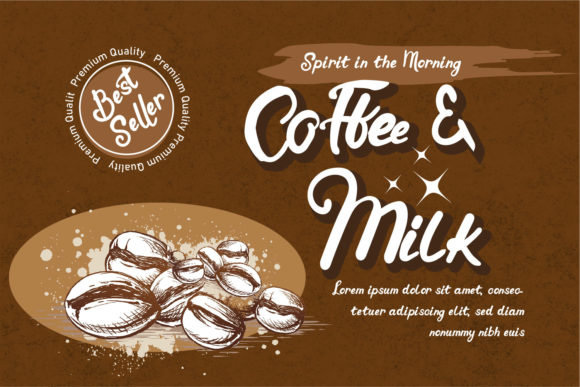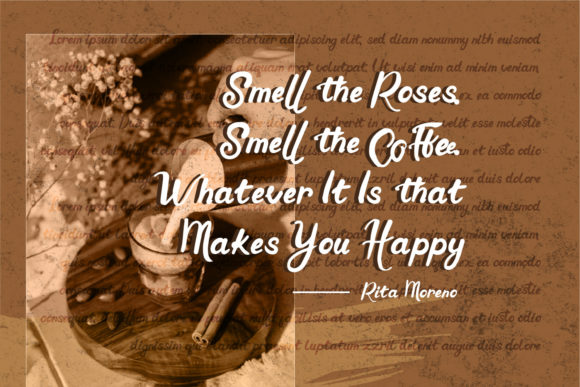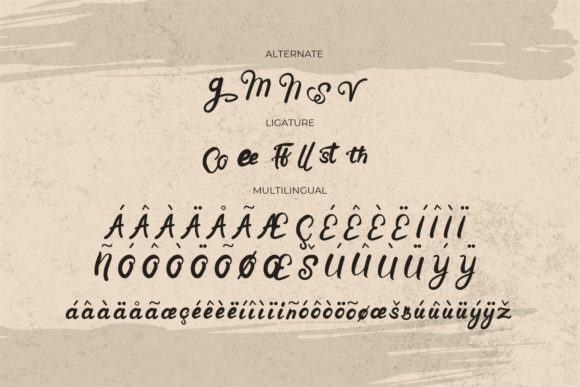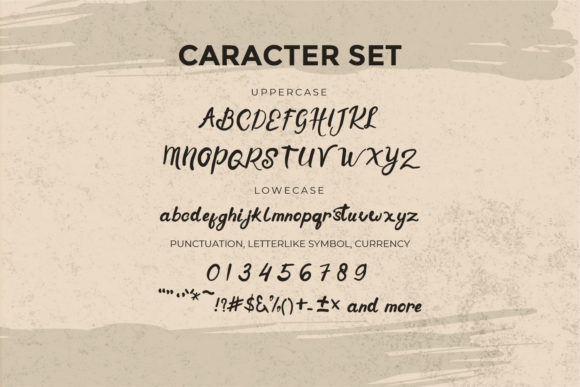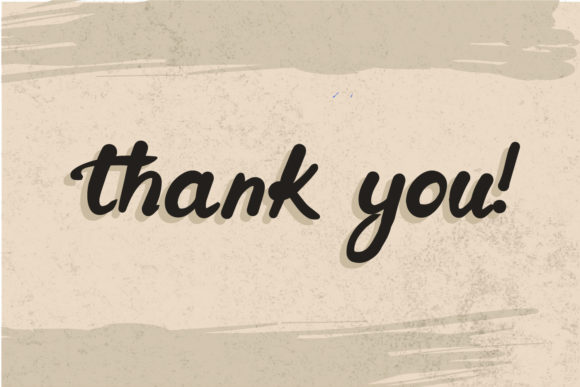
Introduction to Ngallengka Script Font
Ngallengka Script is a beautiful and vintage styled script font.
It will be suitable for any projects such as logos, branding projects, homeware designs, product packaging, mugs, quotes, posters, shopping bags, t-shirts, book covers, and all your other lovely projects that need beautiful handwriting taste .
Key Features of Ngallengka Script Font